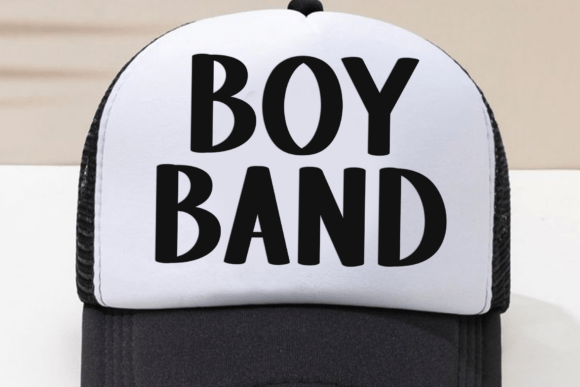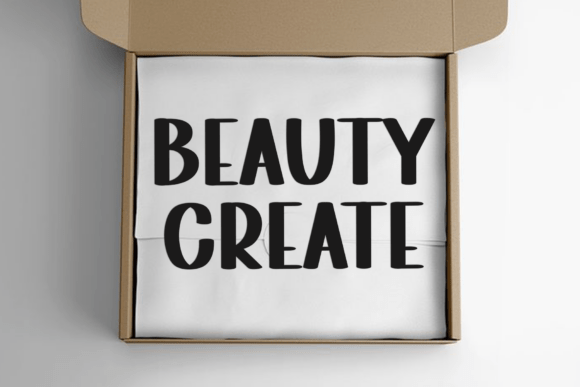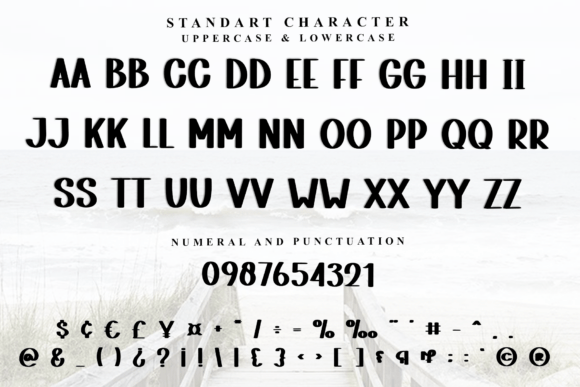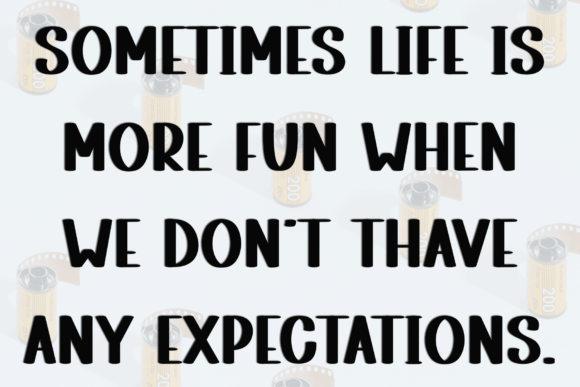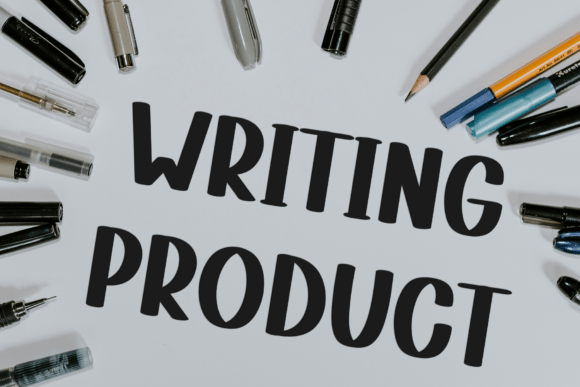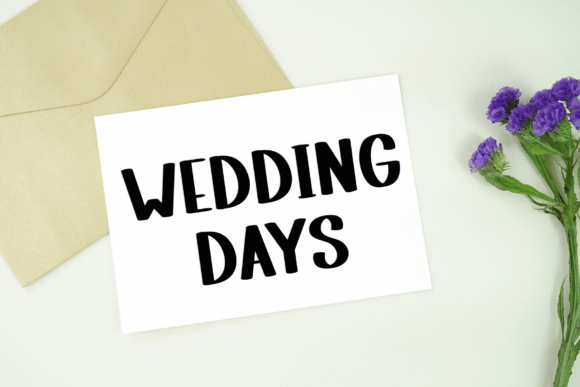
The Magic of Bright Flowers Font: Elevate Your Holiday Designs
It’s that time of the year again – the season of sparkle, shine, and joyful designs. As a designer, I’m always on the lookout for the perfect font to capture the essence of the holidays. Recently, I found myself working on a festive greeting card project, searching for a typeface that would make it truly special. That’s when I stumbled upon the Bright Flowers font, and I was immediately smitten! 🎄
A Festive Favorite: What I Love About Bright Flowers
So, what makes Bright Flowers so charming? Here are a few things that caught my attention:
- ✨ Festive and merry vibe: This font embodies the spirit of the holiday season with its decorative elements and whimsical flair.
- ✅ Ease of use: As a PUA-encoded font, accessing the amazing glyphs and ligatures is a breeze.
- 🎉 Perfect for various projects: From greeting cards and gift tags to holiday-themed projects, Bright Flowers adds a touch of enchantment to your designs.
- 💫 Nostalgic ambiance: This font brings a cheerful and nostalgic feel to your words, making it perfect for creating memorable designs.
A Few Quirks to Consider
While Bright Flowers is a delightful font, there are a few minor limitations to keep in mind:
- ⚠️ Limited use outside of holiday designs: Due to its festive nature, Bright Flowers might not be the best choice for non-holiday projects.
- 🤔 Some glyphs may require manual adjustment: Depending on the design and platform, you might need to tweak certain glyphs for optimal results.
The Story Behind Bright Flowers
Bright Flowers was designed with the holiday season in mind. The creator aimed to craft a font that would evoke the magic and wonder of this special time of year. With its decorative elements and whimsical flair, Bright Flowers is sure to bring joy to your designs.